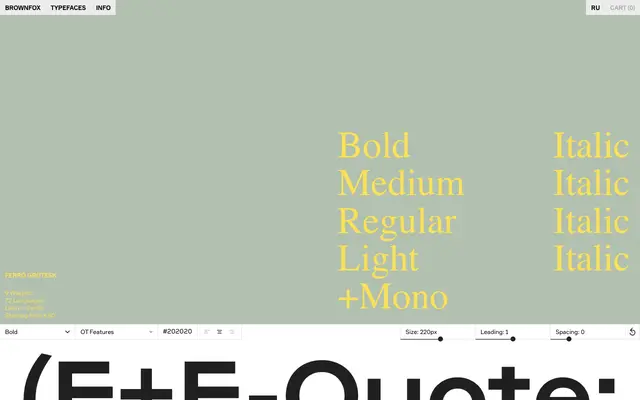
Ferro Grotesk
A nine-weight grotesque from Brownfox covering Latin and Cyrillic across 72 languages, with a companion monospaced variant.
Designed by Vyacheslav Kirilenko, Ferro Grotesk runs from Light to Bold with matching italics throughout, supported by a Mono subfamily for technical or code-adjacent uses. Script coverage spans 72 languages across Latin and Cyrillic, making it a practical choice for multilingual European and Russian-language work. The sample texts lean towards scientific and industrial content, suggesting a positioning suited to technical publishing and institutional communication.
A contemporary grotesque sans-serif with both upright and italic styles across multiple weights, complemented by a monospaced variant, placing it firmly in the grotesque tradition.